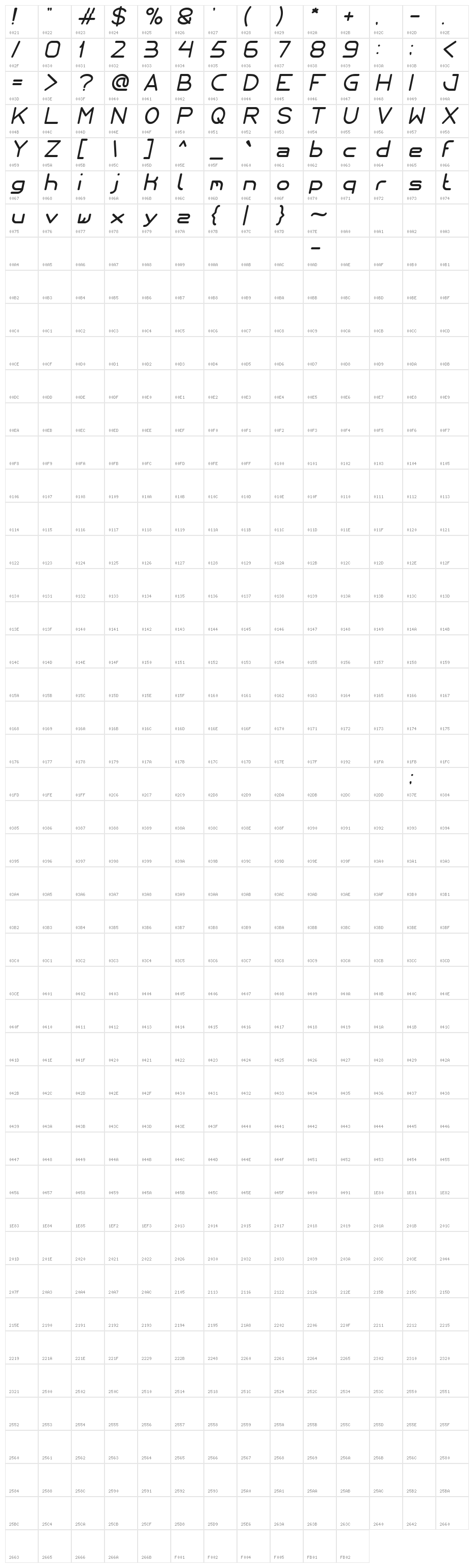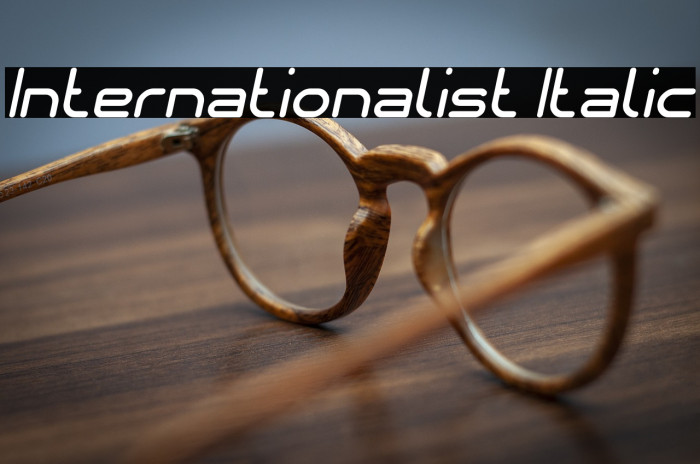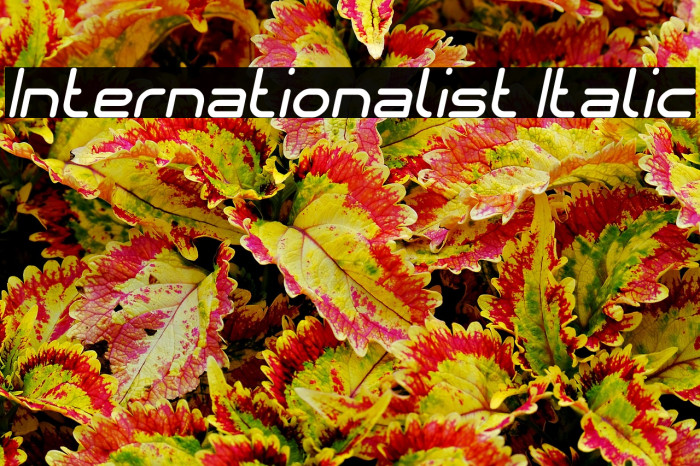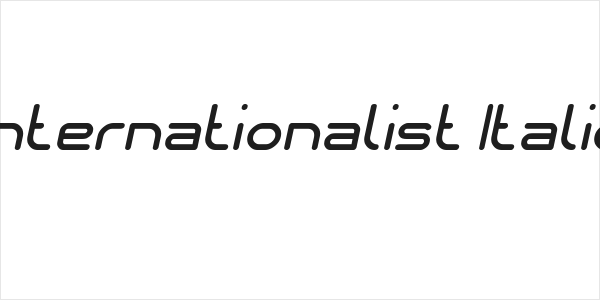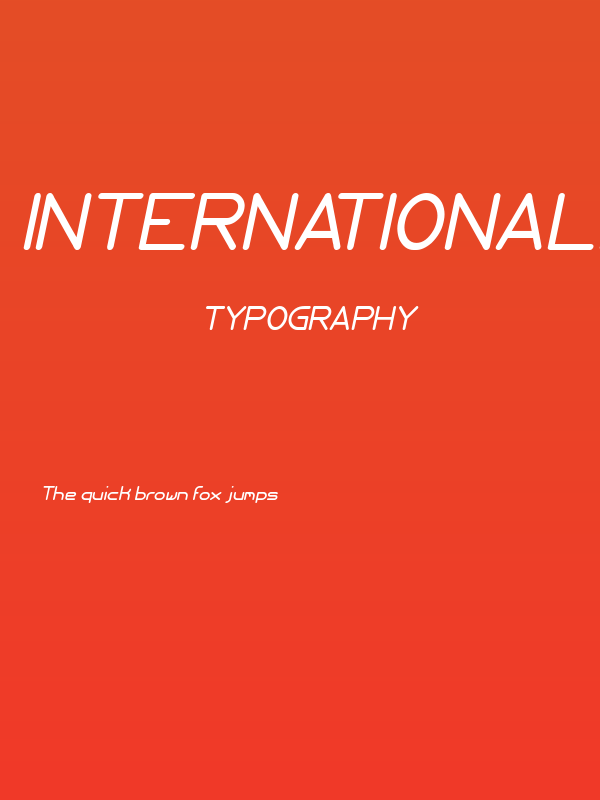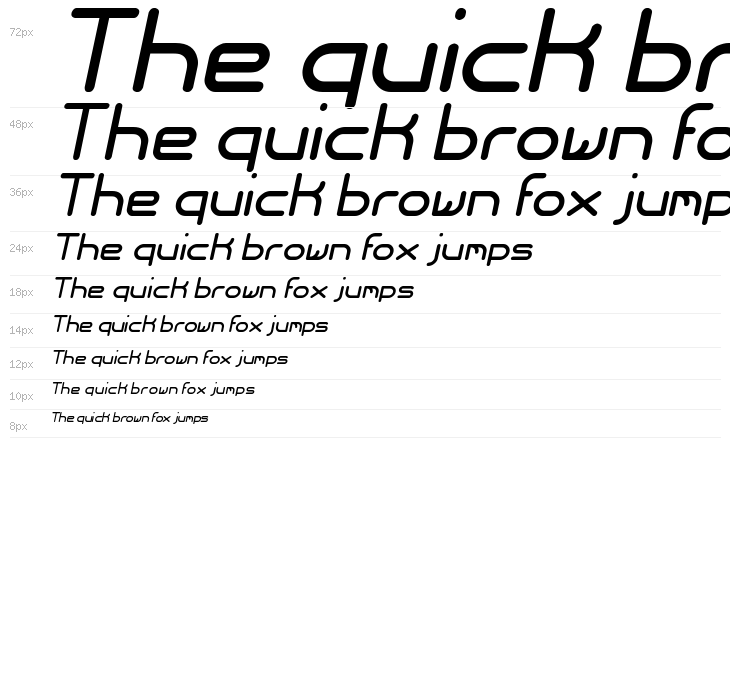
Internationalist Italic Font
Internationalist Italic Description
This font features a sleek, modern design with a distinct italic slant, giving it a dynamic and forward-moving appearance. The characters are rounded and smooth, with a consistent stroke width that maintains a clean and uniform look. The uppercase and lowercase letters are well-proportioned, and the numerals are clear and legible. Special characters are included, maintaining the same stylistic elements as the alphanumeric characters. The overall design is minimalistic yet stylish, making it suitable for contemporary applications.
| Use Case | Headlines, Logos, Digital Interfaces |
| Proposed Projects | Ideal for tech branding, modern advertising, digital interfaces, and futuristic designs. |